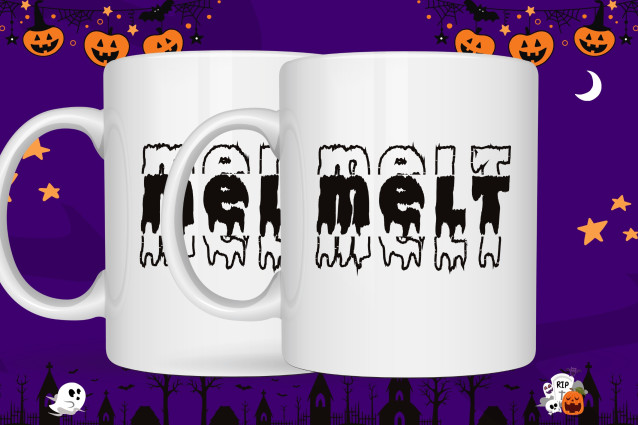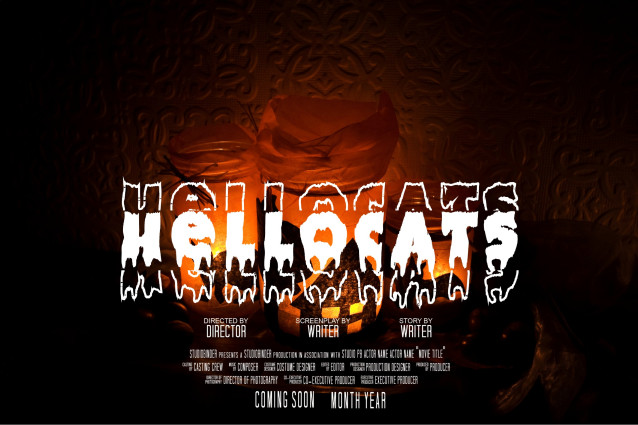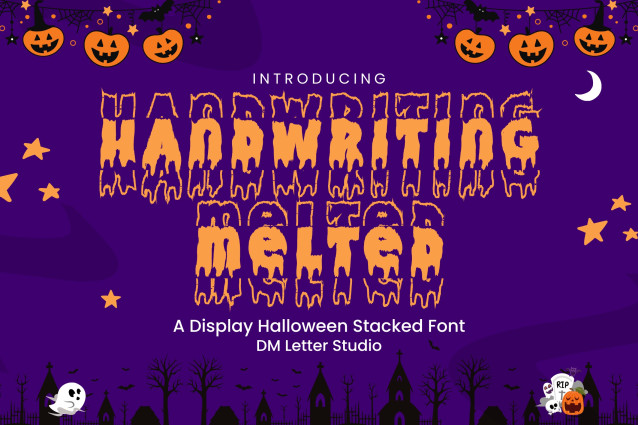
Handwriting Melted Stacked Font
Handwriting Melted Stacked brings a creepy twist to stacked lettering with its oozing, drippy style. Designed for maximum impact, this vertically aligned spooky font is perfect for Halloween posters, eerie invites, trick-or-treat bags, haunted house signs, and more. The stacked layout emphasizes the gooey texture, giving your words a chilling and playful look.